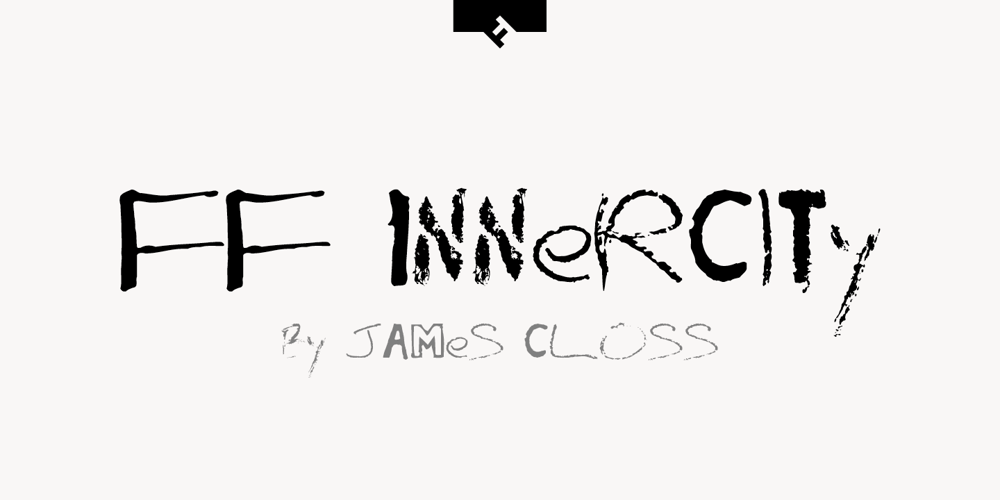
FF InnerCity Font Family was designed by James Closs and published by FontFont. FF InnerCity contains 2 styles and family package options. British type designer James Closs created this display FontFont in 1994. The family contains 2 weights and is ideally suited for film and tv and poster and billboards. FF InnerCity provides advanced typographical support with features such as ligatures. It comes with proportional lining figures.